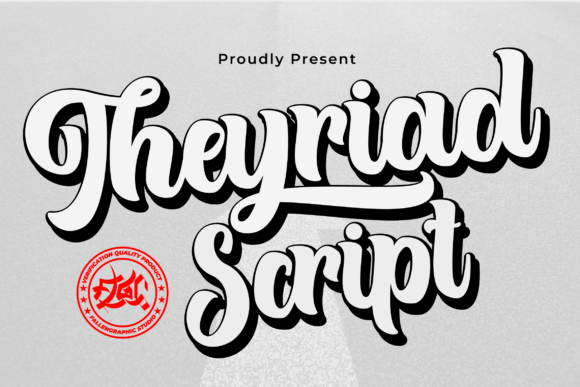
Journey into the realm of timeless elegance with Theyriad Font, a script font family that captivates hearts and ignites creativity. Fall under the spell of its enchanting swashes and the delicate finesse of its lines, skillfully crafted to evoke a sense of enduring beauty.
Theyriad, a brainchild of Fallengraphic, is not just a font; it's an artistic expression that breathes life into your designs. Whether you're a seasoned designer or embarking on your creative odyssey, Theyriad will elevate your work to breathtaking heights.
Imagine your wedding invitations adorned with the flowing script of Theyriad, each letter dancing harmoniously to narrate your love story. Its graceful curves capture the essence of romance, transforming your invitations into cherished keepsakes.
Or envision your brand logo radiating sophistication and charm, the letters of Theyriad intertwining to create a visual symphony. Its timeless style transcends trends, ensuring your brand identity remains iconic for years to come.
With Theyriad as your creative companion, your social media posts will transform into captivating works of art. Its elegant strokes will lend an aura of sophistication to your quotes, while your product photography will exude an irresistible allure.
Let Theyriad's versatility unleash your creativity. Whether you're designing business cards that leave a lasting impression or creating eye-catching album covers that reflect your musical soul, Theyriad will effortlessly elevate your designs to new heights of excellence.